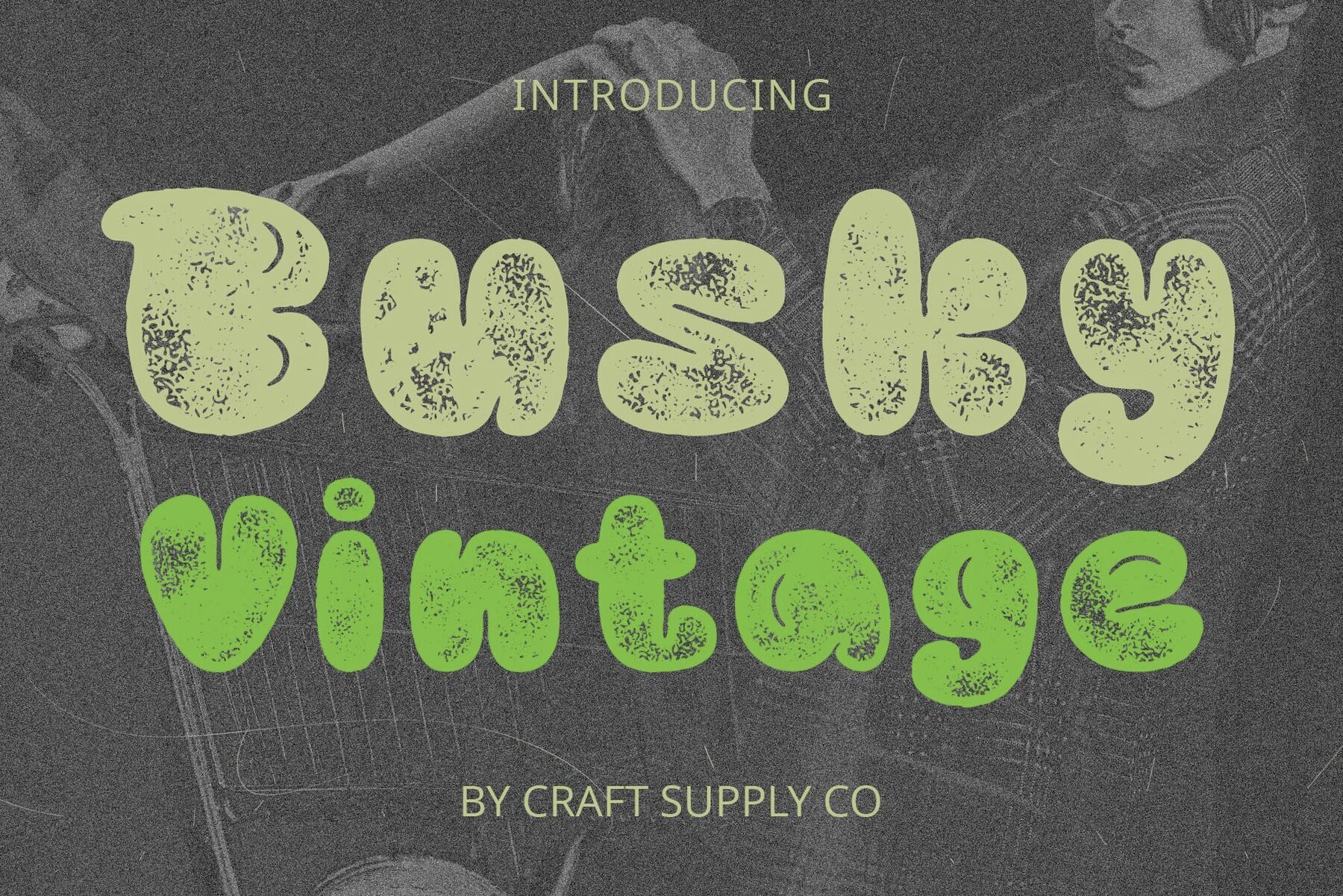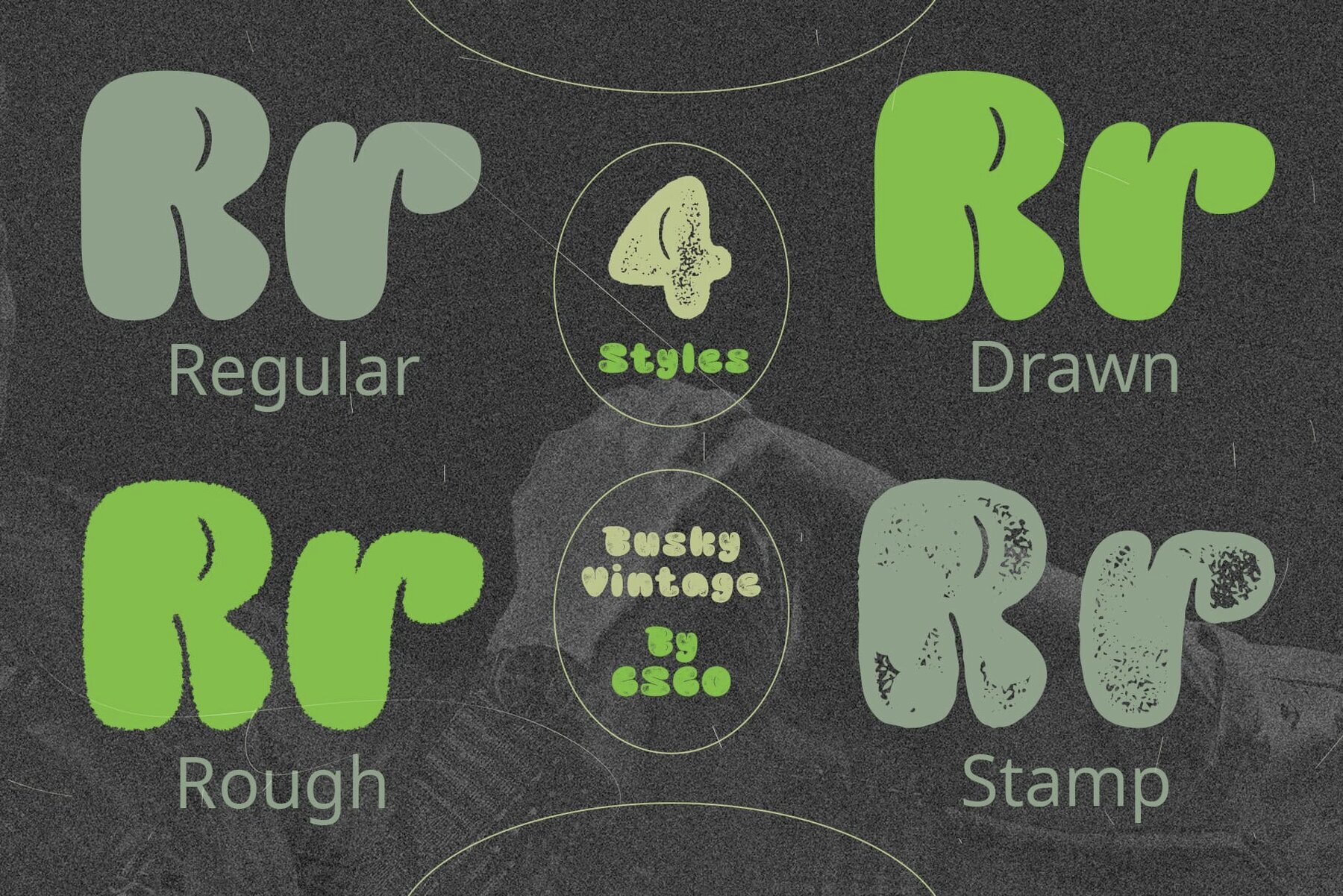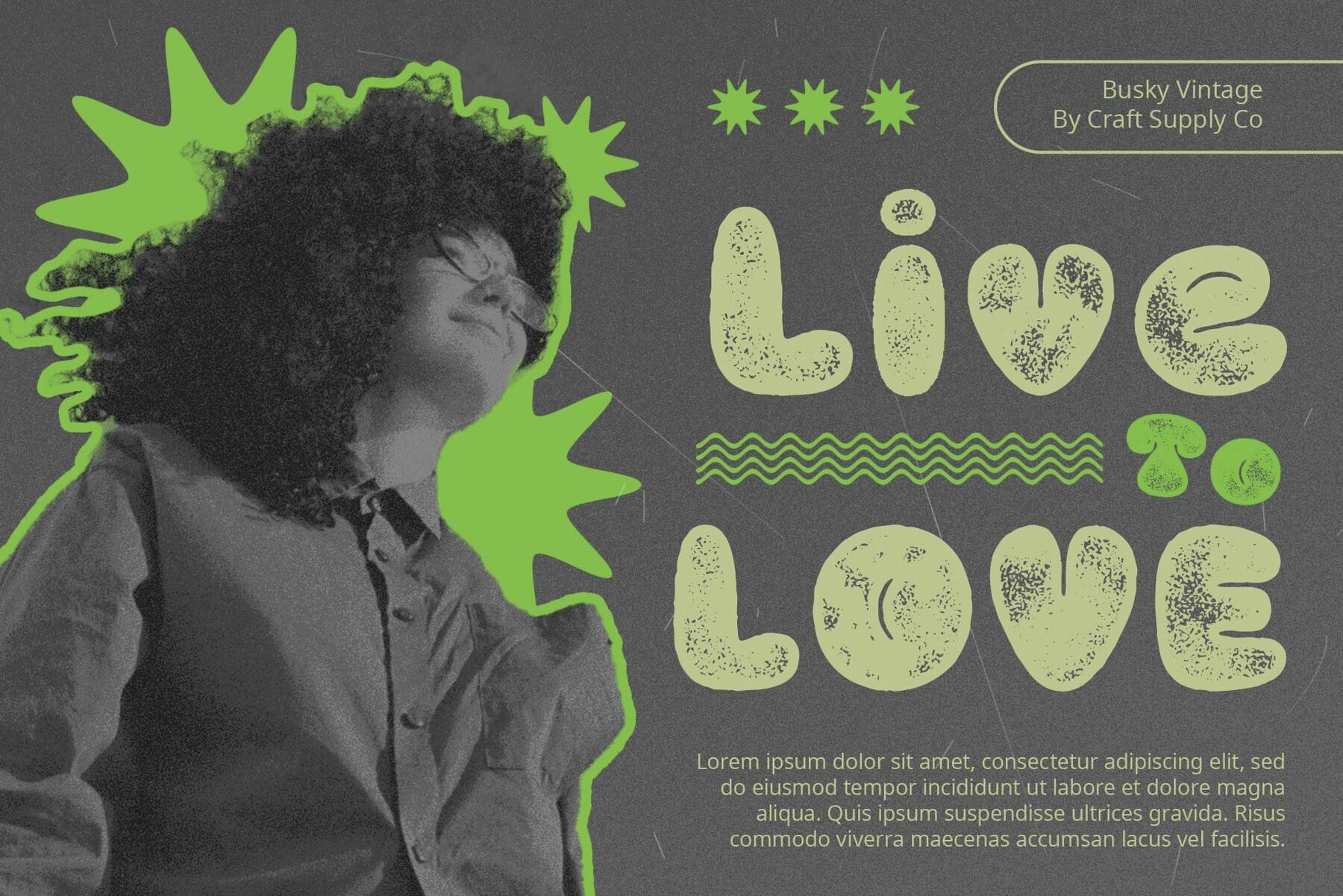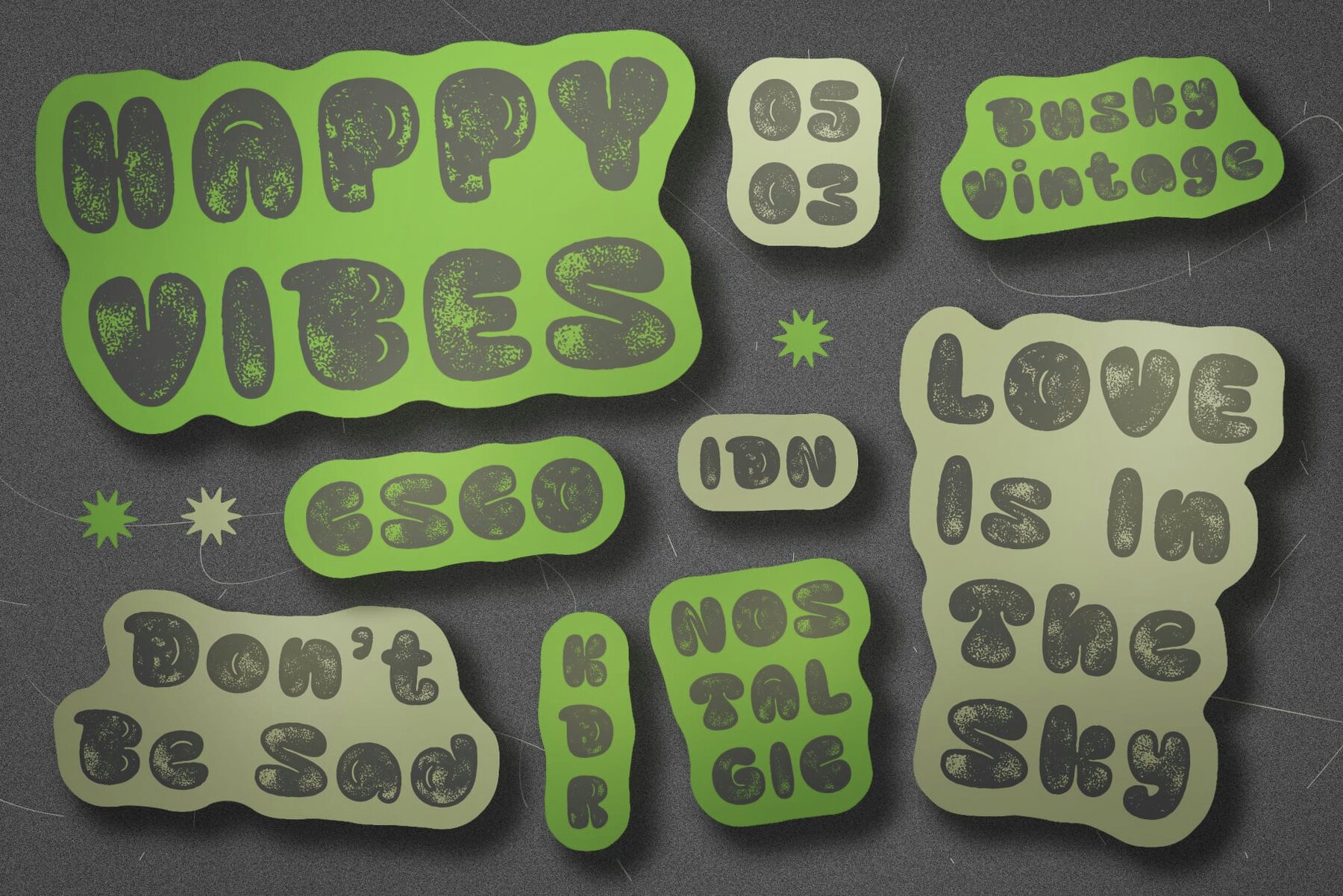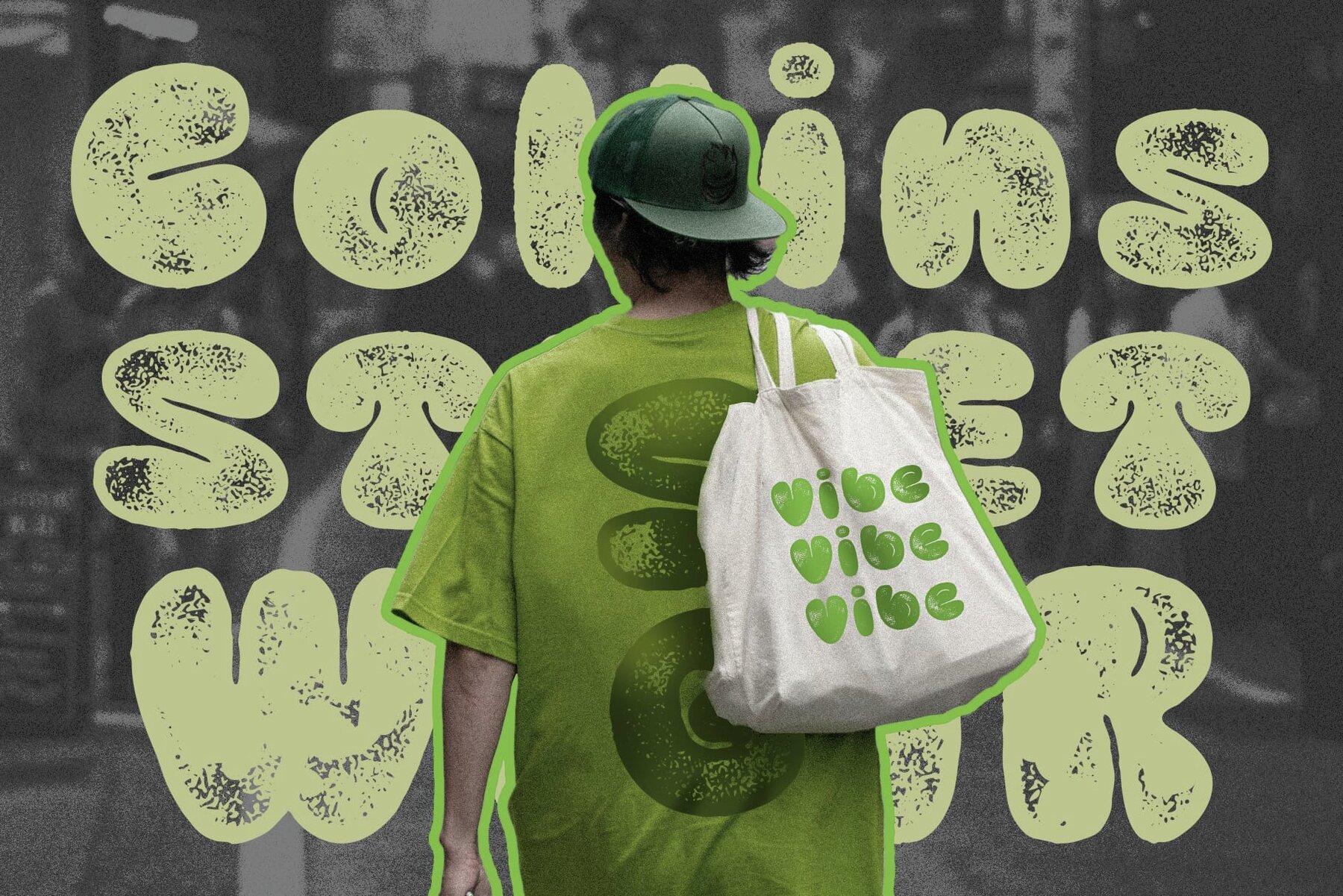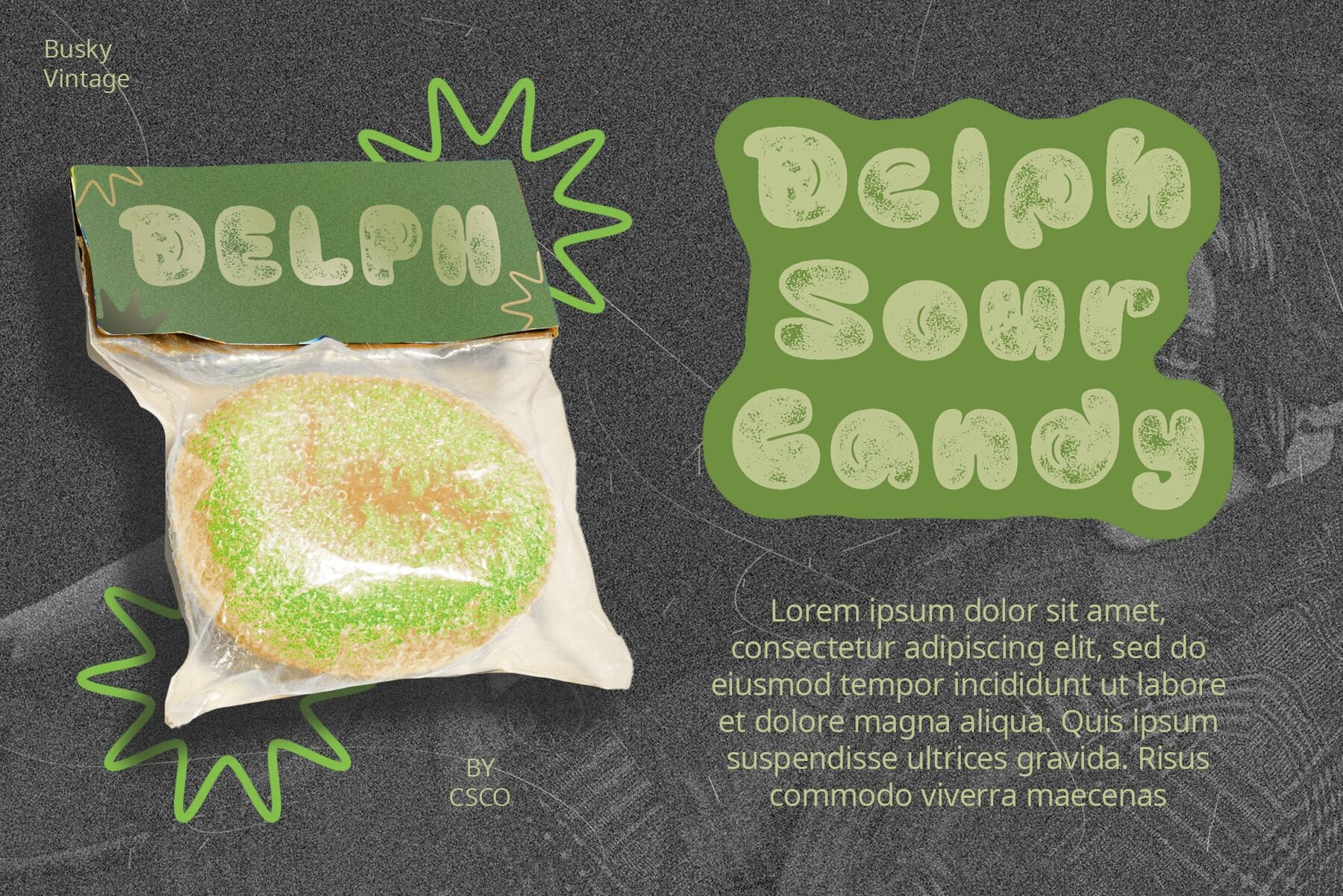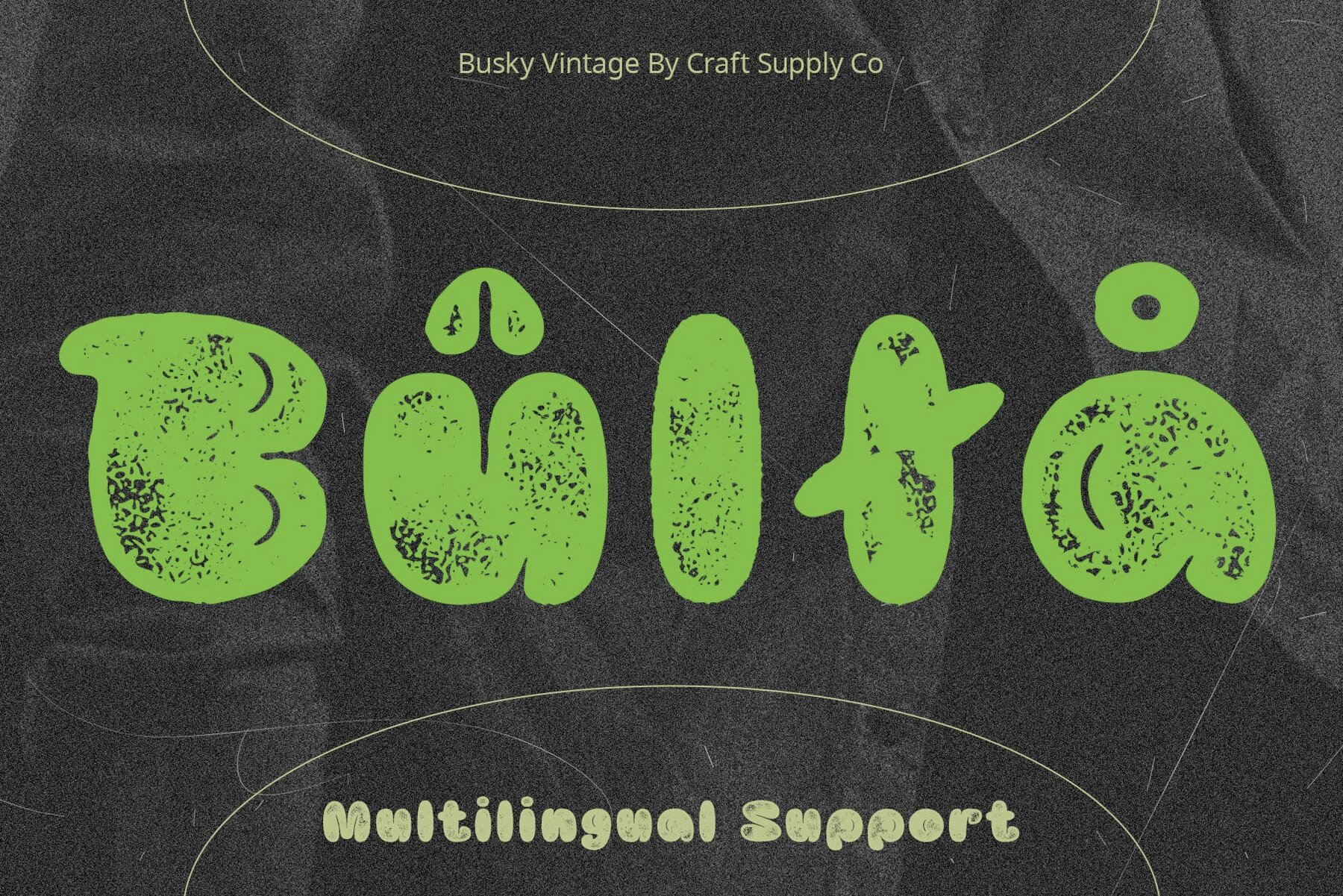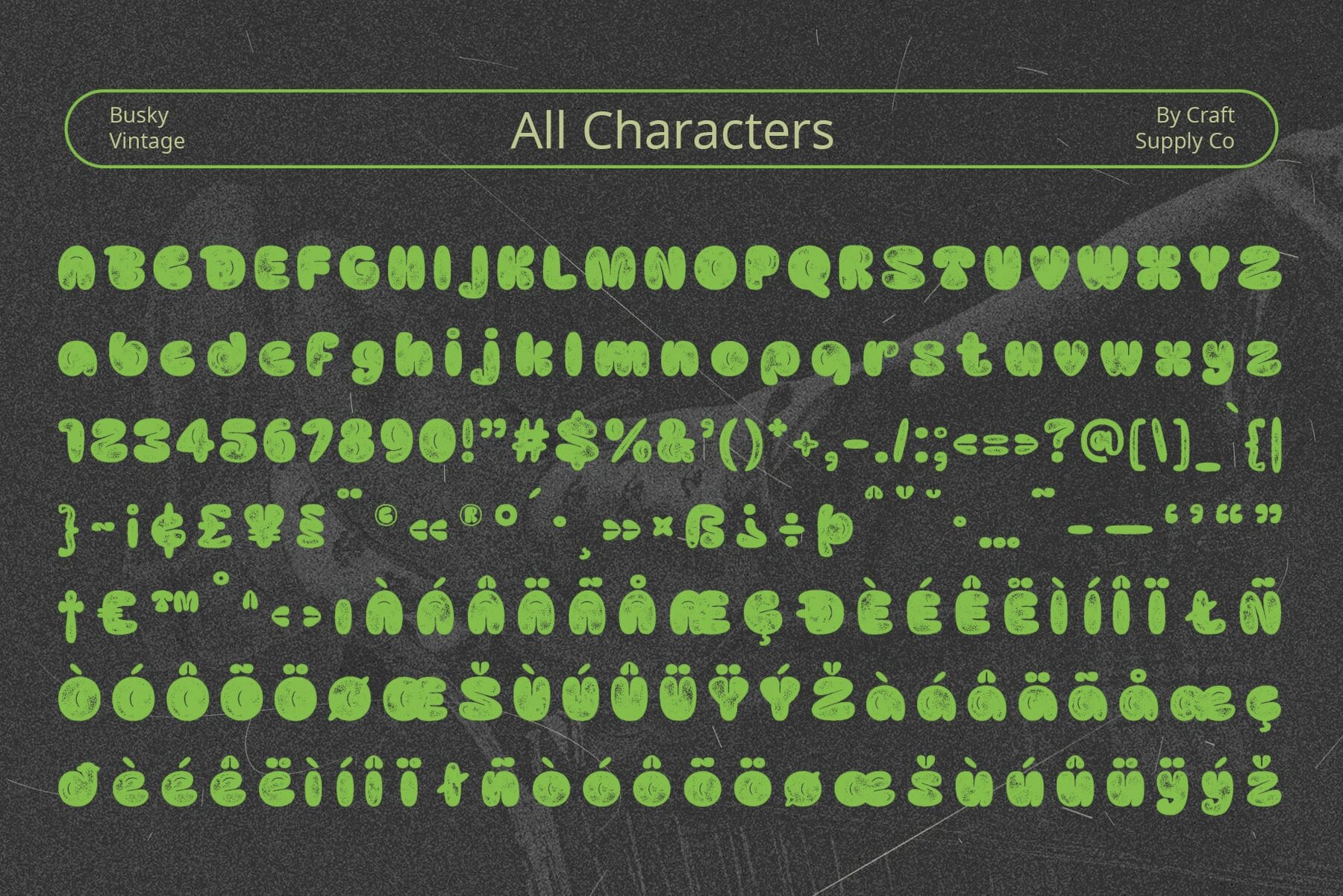
Busky Vintage Font
Busky Vintage is a unique typeface by Craft Supply Co. that captures the essence of playfulness and street art. Its design is inspired by bubble and graffiti styles, offering a creative and urban aesthetic. Busky Vintage boasts a playful bubble-inspired design, reminiscent of balloons and graffiti art. Its rounded forms and whimsical shapes exude a sense of fun and creativity. Drawing inspiration from graffiti culture, this font incorporates bold and dynamic letterforms that evoke the energy and vibrancy of street art. Each character exudes a sense of urban flair and attitude. The font features a rough stamp drawn effect, adding a weathered and vintage appearance to its bubbly forms. This texture lends authenticity and character, enhancing its retro charm. With its bubble-inspired design and graffiti influence, this font embodies a vintage aesthetic that transports viewers back in time. It evokes nostalgia while retaining a contemporary edge, making it suitable for a wide range of design projects. This font combines the whimsy of bubble shapes with the urban edge of graffiti art, resulting in a font that is both playful and vintage-inspired. Its rough stamp drawn effect adds character and authenticity, making it a versatile choice for designers looking to infuse their projects with retro charm and urban flair. No specialized software is needed to utilize this typeface.Busky Vintage: Channeling Bubble and Graffiti Inspirations
Bubble-Inspired Design
Graffiti Influence
Rough Stamp Drawn Effect
Vintage Appeal
Playful, Urban, and Retro